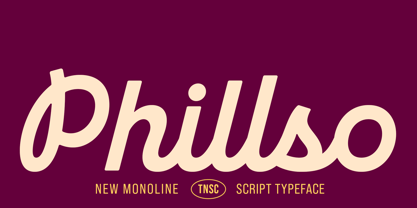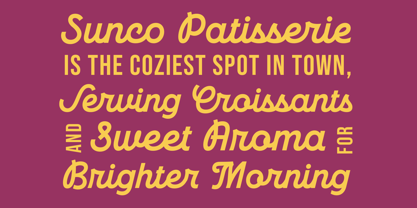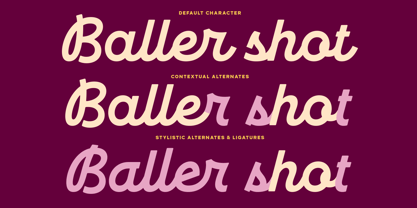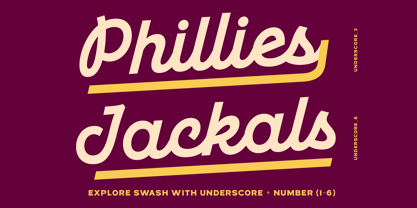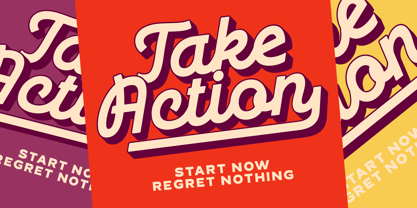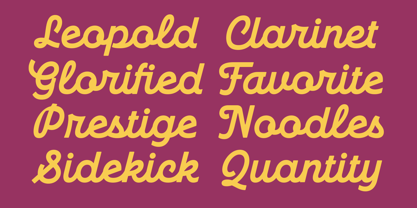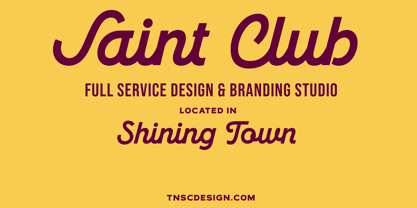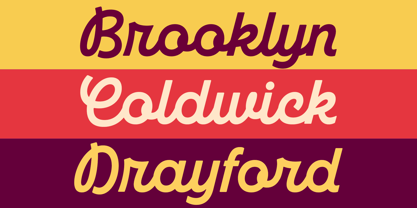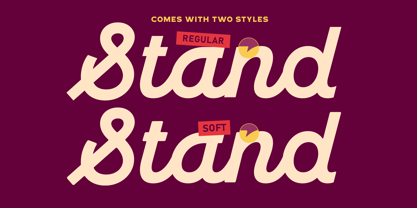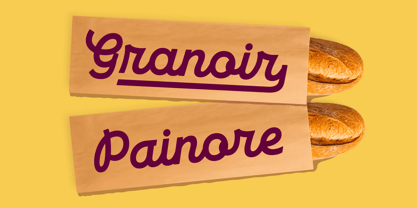
The Phillso Font Family was designed by Bagas Ferdiansah, Septianto Nugroho and published by The Native Saint Club. Phillso contains 2 styles and family package options.
TNSC Phillso is a bold monoline script designed for branding, packaging, and display use. Its smooth curves and retro-inspired style bring warmth and personality to logos, café menus, and vintage packaging. NOTE : Please Check the Help File first and for all the characters are also available, accessible in the Adobe Illustrator Glyphs Panel, or in Adobe Photoshop Character Open Type Panel.
Phillso